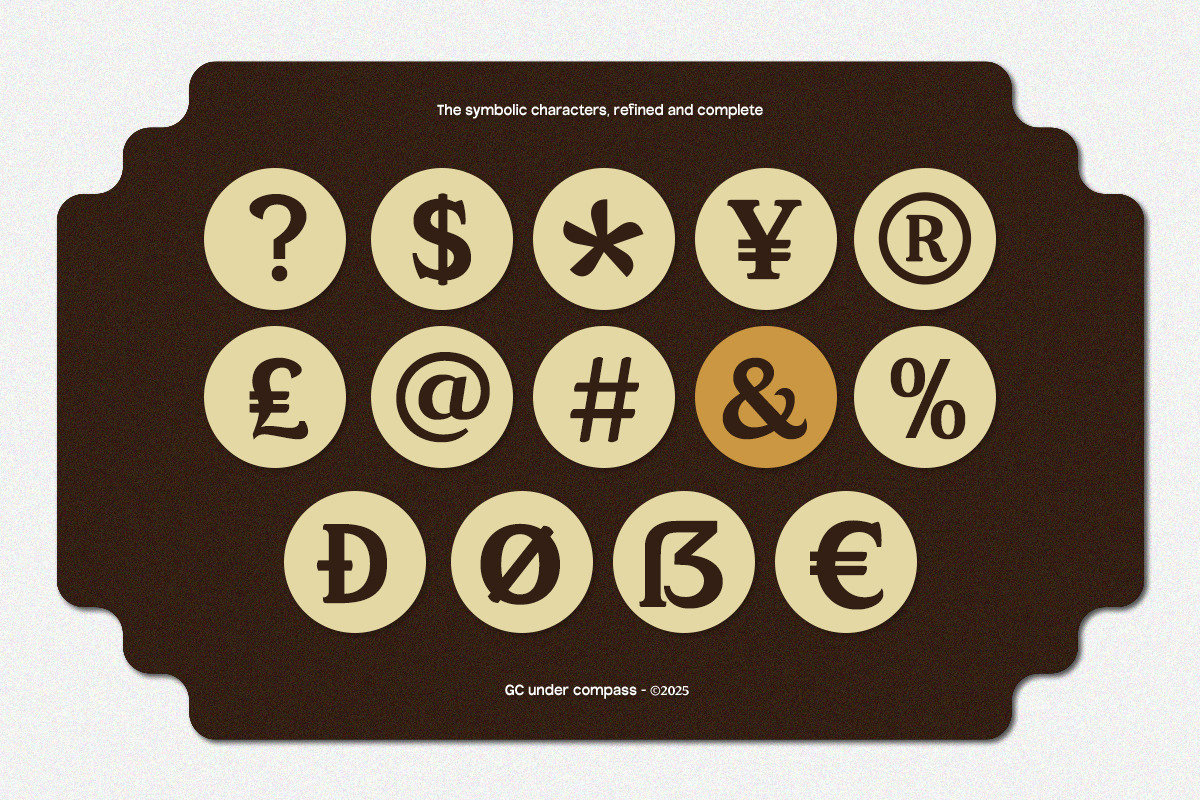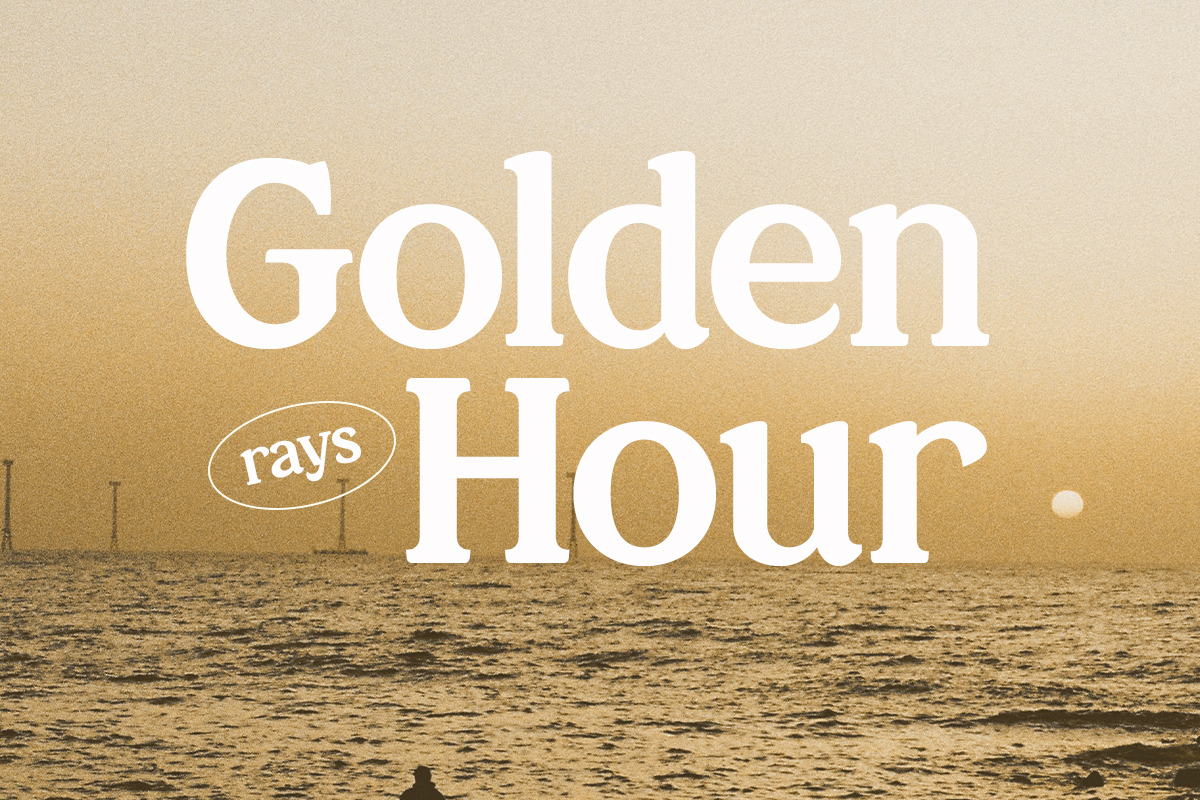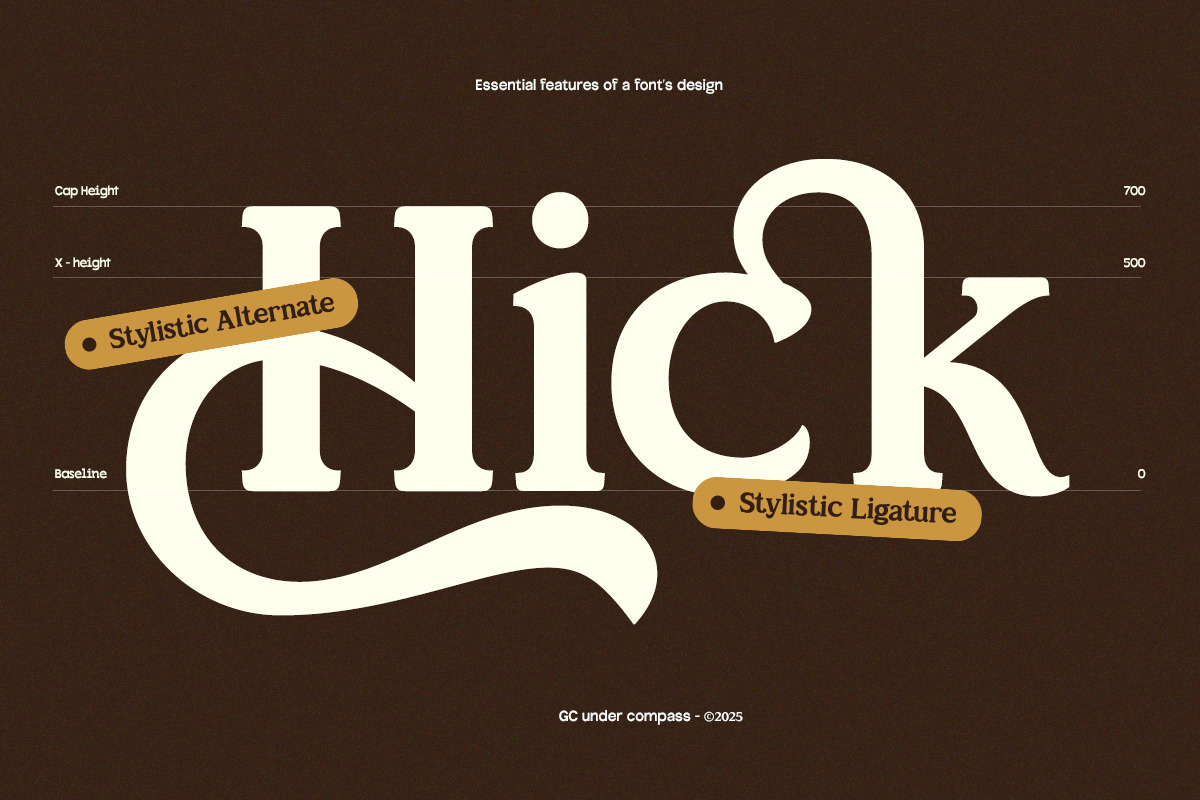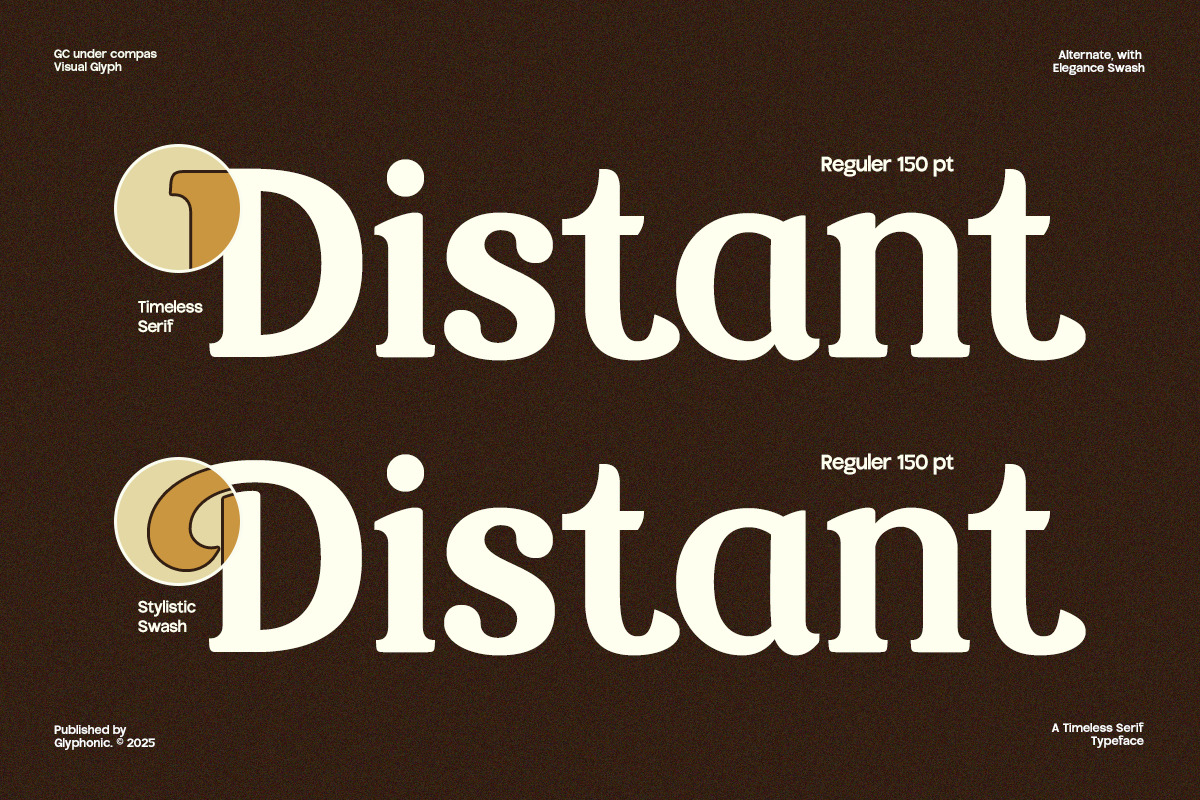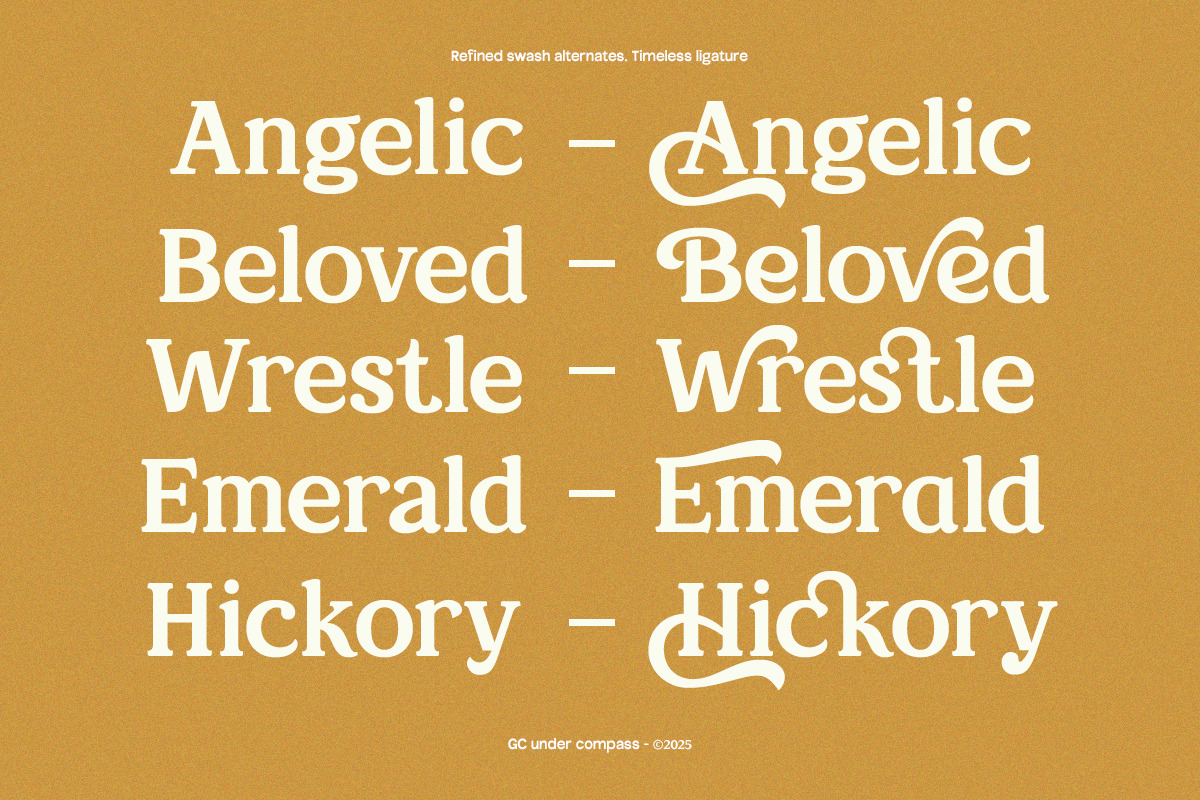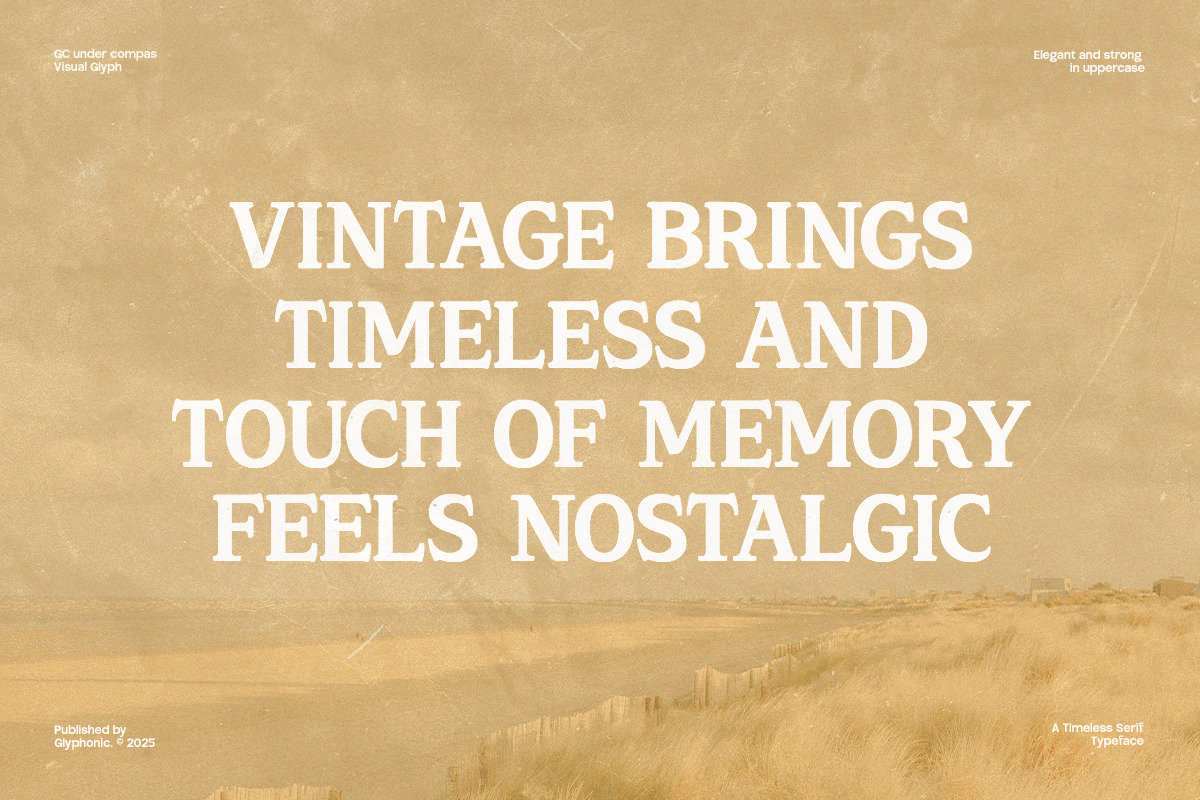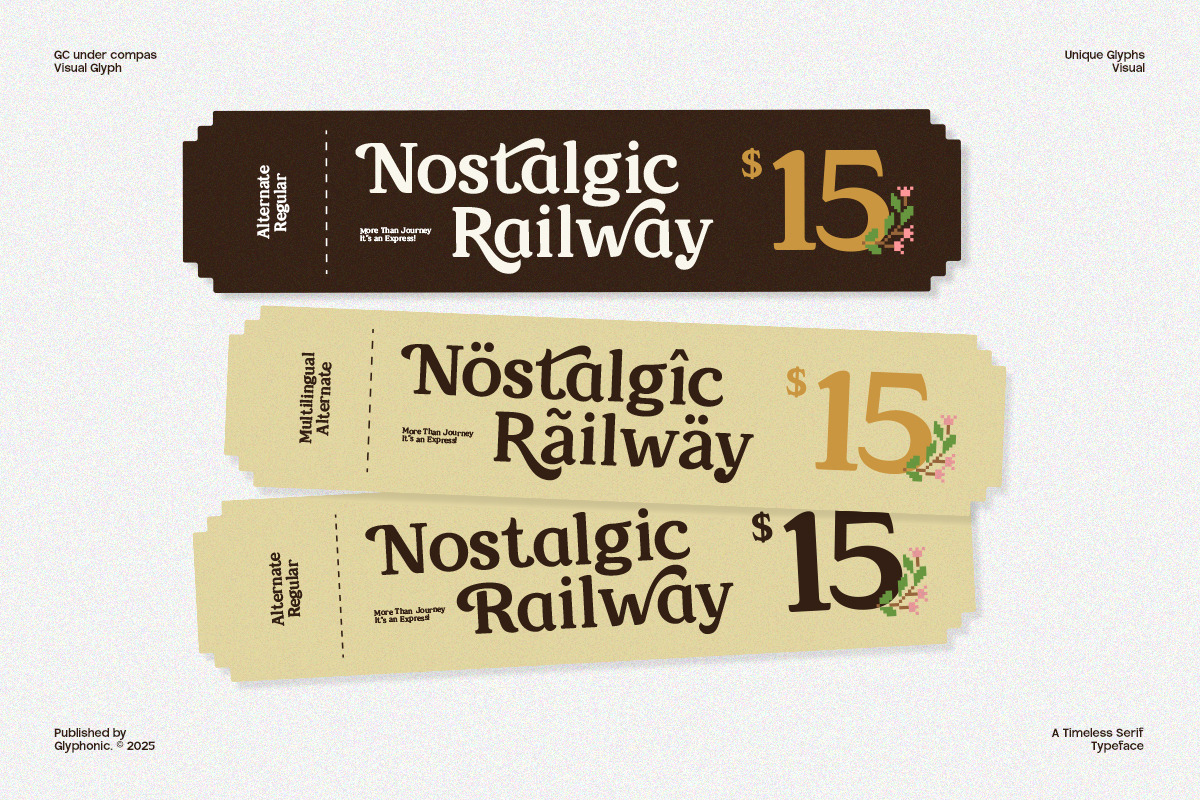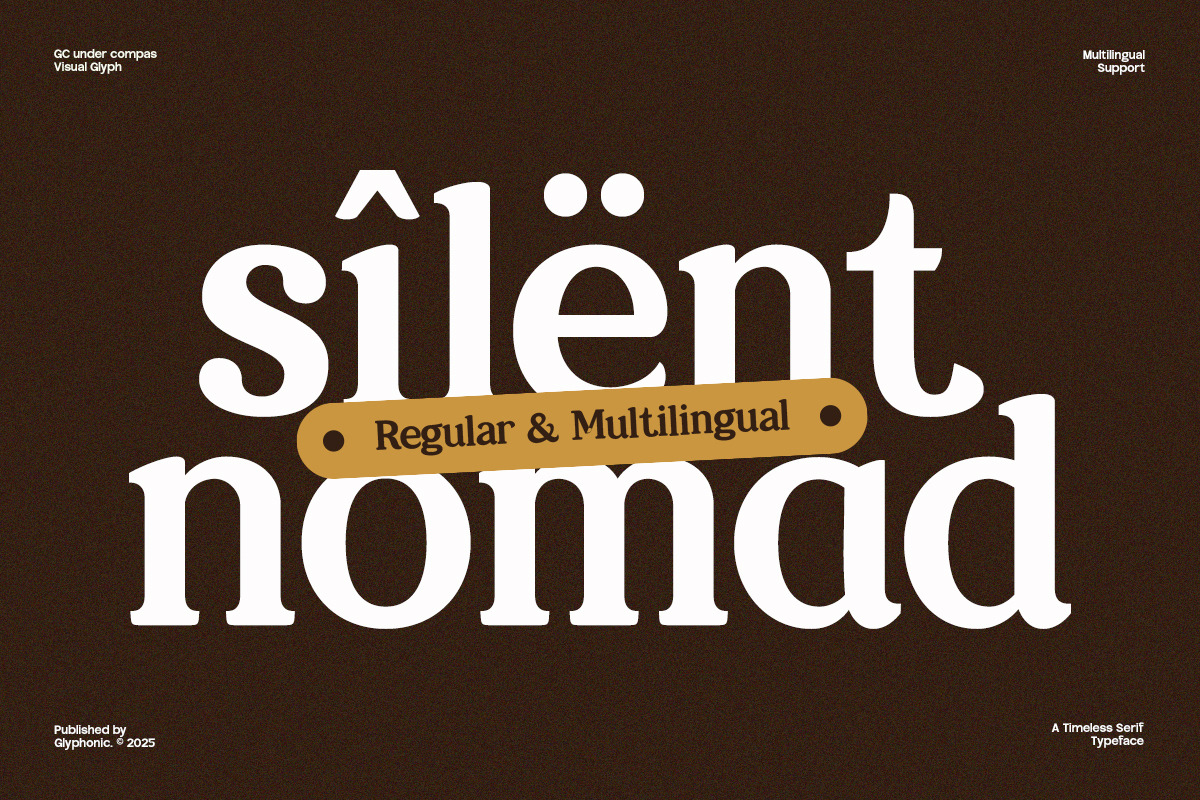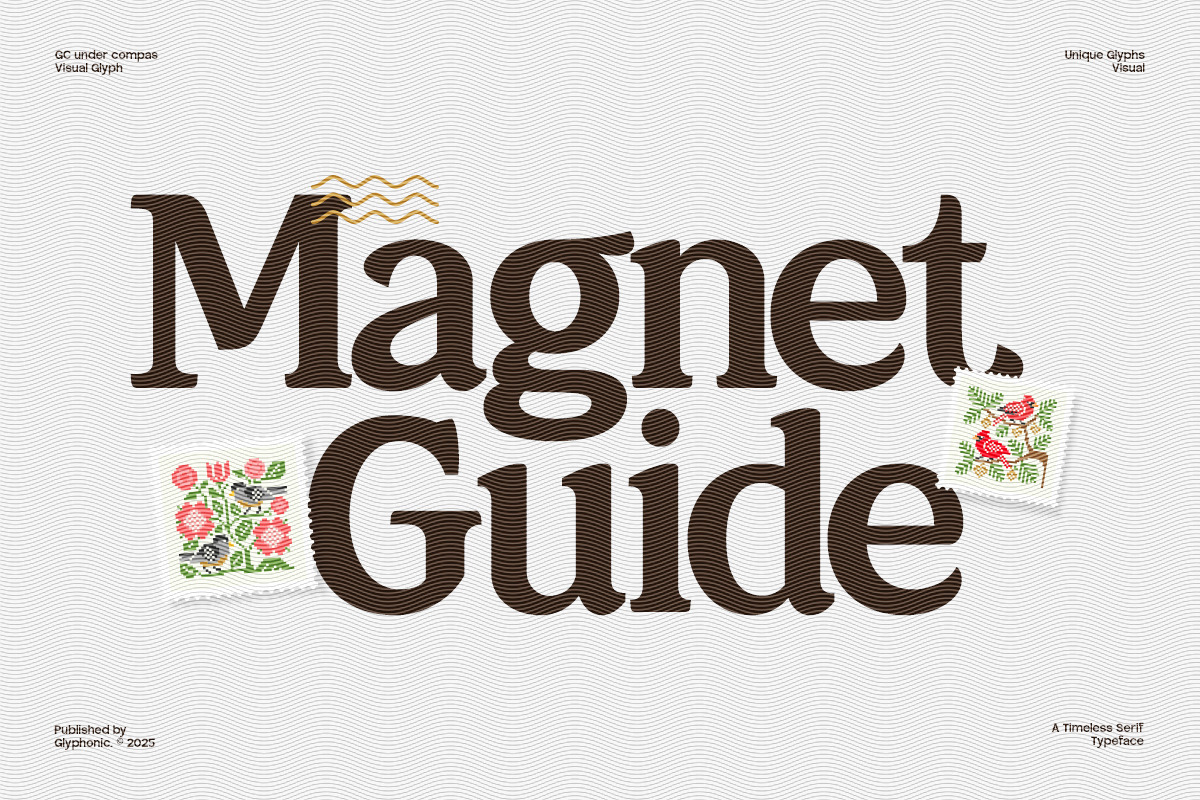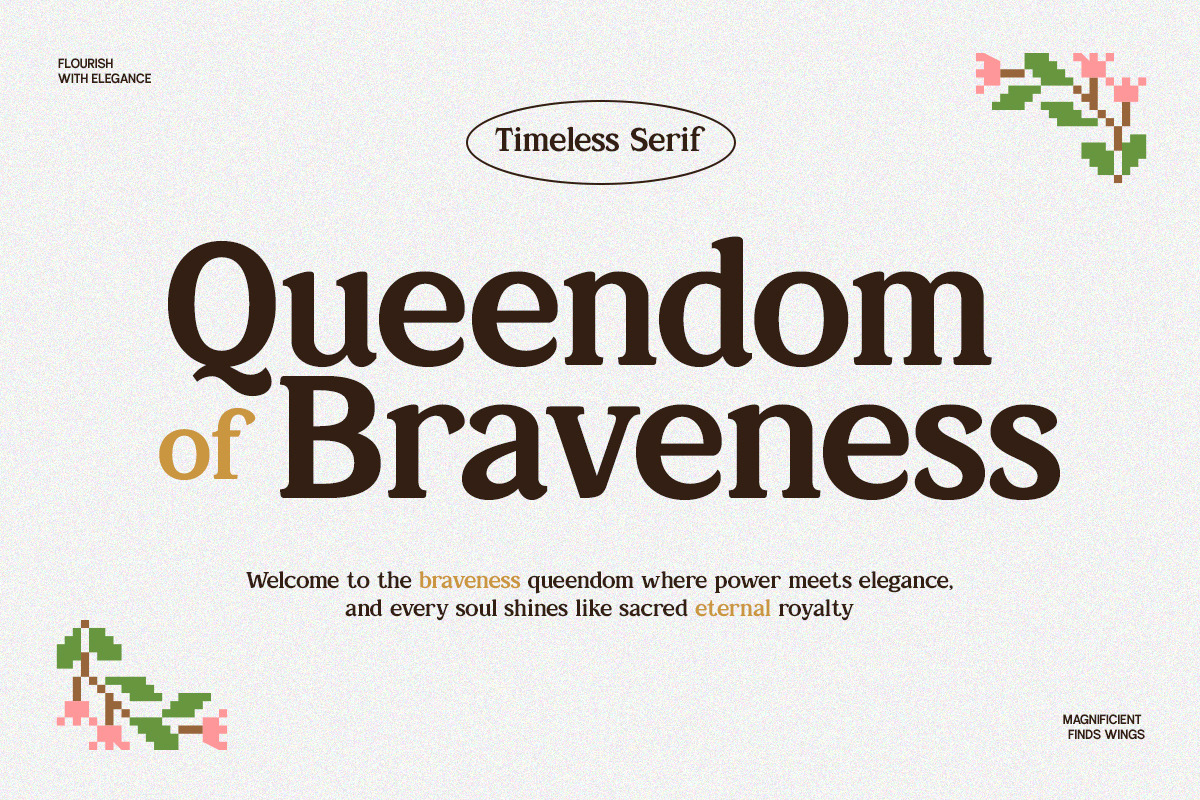
GC Under Compas – Timeless Serif
GC Under Compass – Serif Stories for Every Page is a timeless serif typeface that blends classic elegance with contemporary refinement. Inspired by traditional letterforms yet designed with modern usability in mind, it offers warmth, sophistication, and character in every stroke. Perfect for editorial layouts, book titles, branding, and heritage-inspired designs, this font brings a narrative quality to any project.
With its harmonious proportions, subtle curves, and confident presence, GC Under Compass delivers a versatile serif that feels both familiar and fresh. Whether you’re creating literary covers, elegant packaging, or storytelling visuals, this typeface adds depth, charm, and a sense of direction to your typography.
- Ligatures & Stylistic Alternates
- Multilingual Support (170+ Languages)
Make your design timeless, refined, and full of character with GC Under Compass.